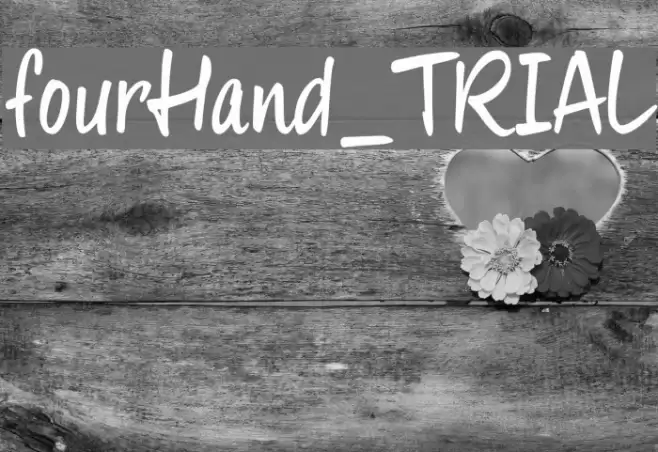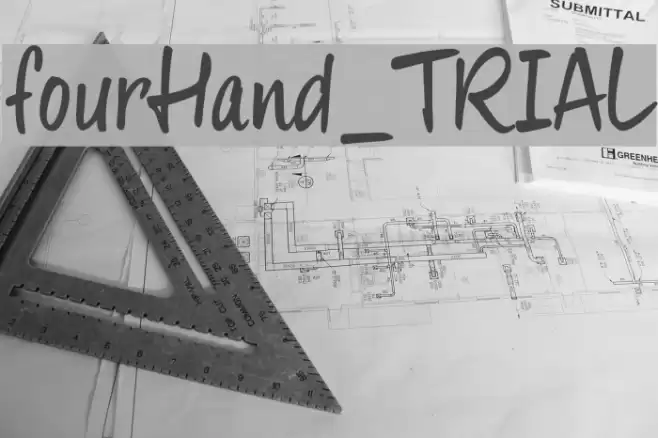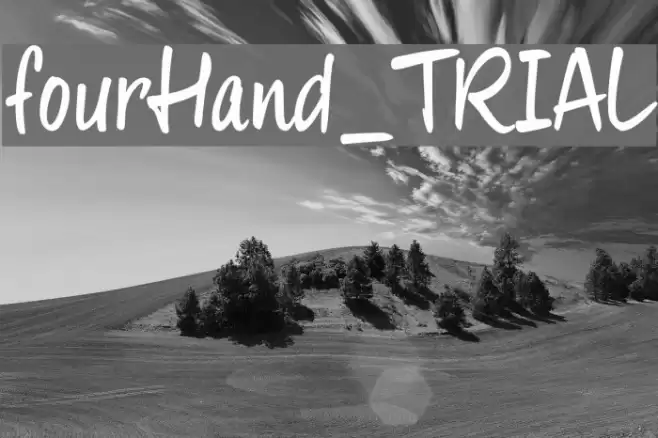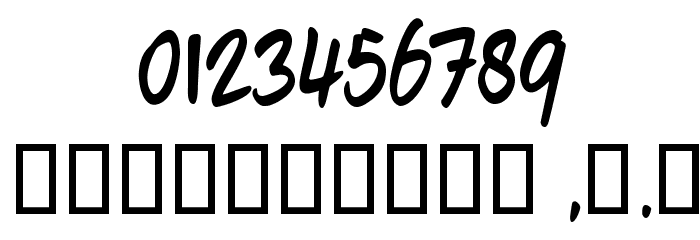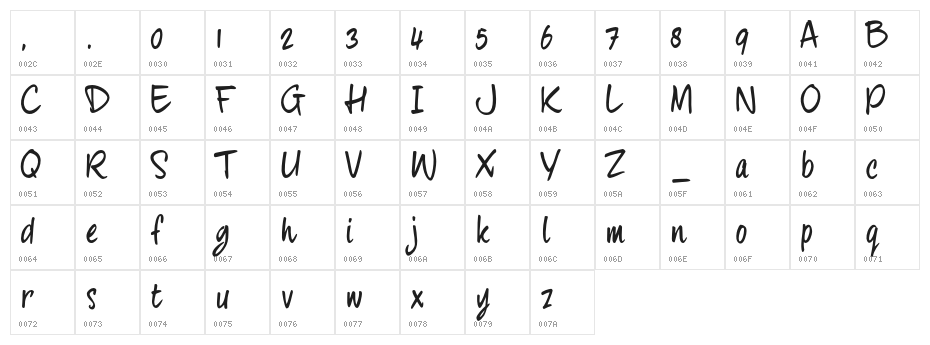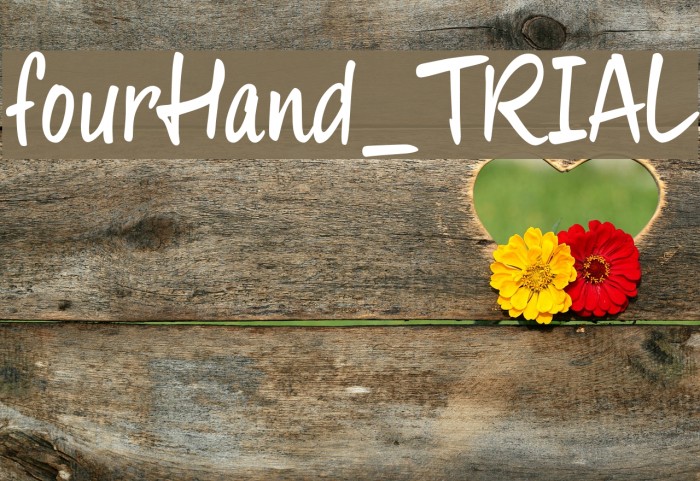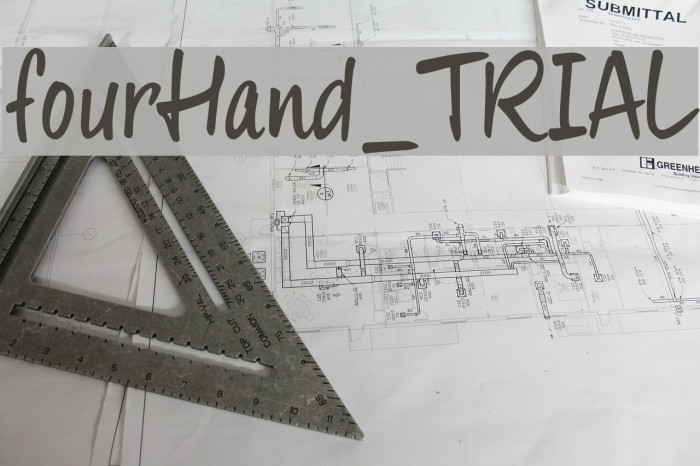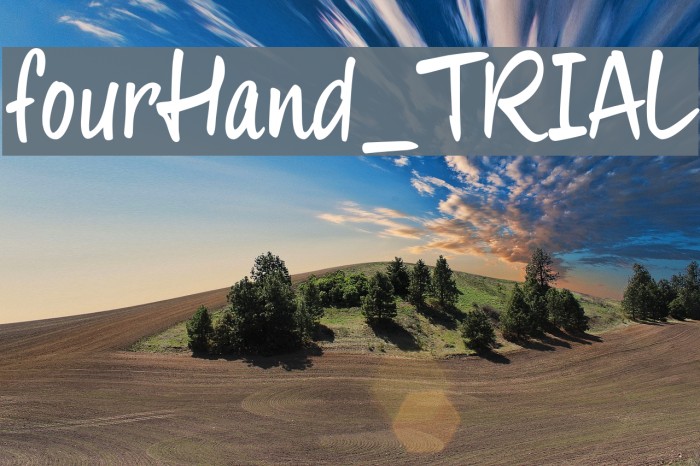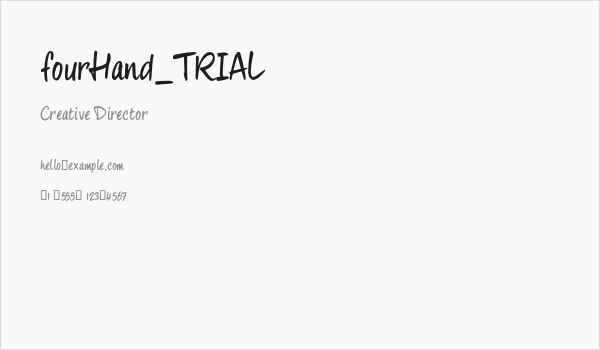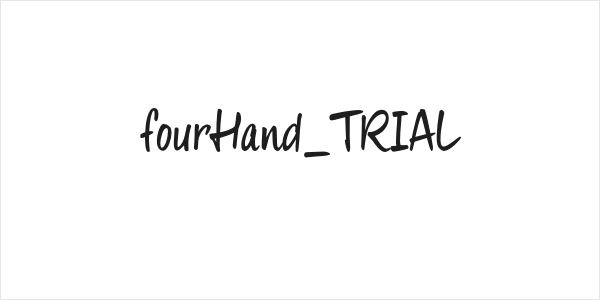
fourHand_TRIAL Font
fourHand_TRIAL Description
This font features a playful and casual handwritten style, characterized by its smooth, flowing curves and slightly irregular letterforms. The uppercase letters are bold and dynamic, while the lowercase letters maintain a consistent rhythm, adding to the font's informal charm. The numbers are clear and legible, matching the overall aesthetic. The font's design is reminiscent of personal handwriting, making it ideal for projects that require a personal touch. The spacing between characters is balanced, ensuring readability without compromising its artistic flair.
A playful, handwritten font with smooth curves and dynamic letterforms from Handwritten fonts.
- Proposed Projects: Ideal for greeting cards, personal branding, social media graphics, and informal invitations.
- Overall Style: Casual
- Use Case: Logos, Headlines, Informal Text